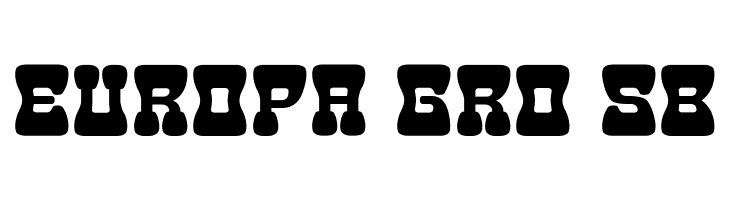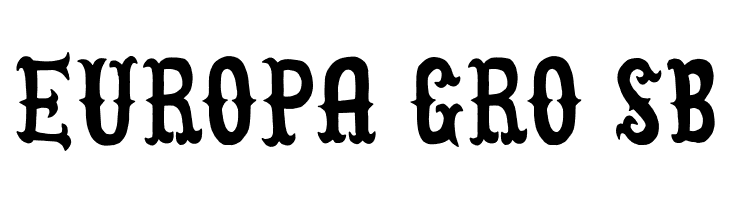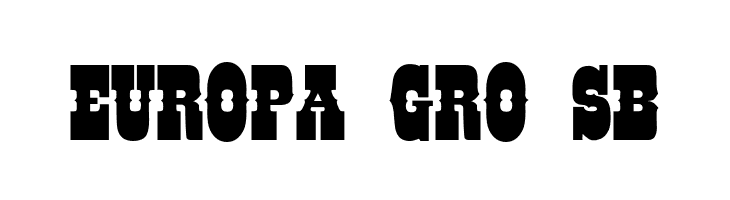
• BeverlyHillbilles Demo
A quirky, vintage-style font with bold, irregular letterforms and a playful, rustic charm.
• Heritage Black Regular
A bold, decorative font with a vintage, three-dimensional style.
• Los Chapters
A bold, textured font with a vintage, distressed style.
• Henry McCarty
A rugged, distressed font with a vintage, handcrafted appearance.
• Bandits Striped
A vintage, striped decorative font with ornate serifs and intricate detailing.
• Milletun
A bold, vintage-style serif font with strong, squared serifs.
• Bar el Loro
A bold, rugged font with a distressed, vintage appearance.
• Moher Regular
An ornate, decorative font with intricate detailing and a vintage flair.
• Wooden Planks Bold
A bold, 3D font with a wooden texture and vintage appeal.
• Outlaw Black Regular
A bold, decorative font with intricate Wild West-inspired detailing.
• REWARD PERSONAL USE Regular
A bold, distressed font with a vintage, rugged style.
• Redzein Vintage
A bold, vintage-style font with strong serifs and a decorative flair.
• Deadman
A bold, decorative slab serif font with unique cut-out details.
• Cowboy Cadaver
A rugged, distressed slab serif font with a vintage, Wild West feel.
• Wild Bandit Outline
A bold, outlined font with a vintage, playful style.
• Leyends
A bold, vintage-style serif font with strong, angular serifs and a robust presence.
• Black Milk Rough Regular
A bold, rugged font with a distressed, vintage appearance.
• España
A bold, distressed font with a vintage, rugged appearance.
A bold, decorative font with vintage, ornate details and sharp serifs.
• BigLodgeTypeFree
A bold, high-contrast serif font with a vintage, decorative style.
• California
A bold, vintage-style font with thick, blocky characters ideal for impactful designs.